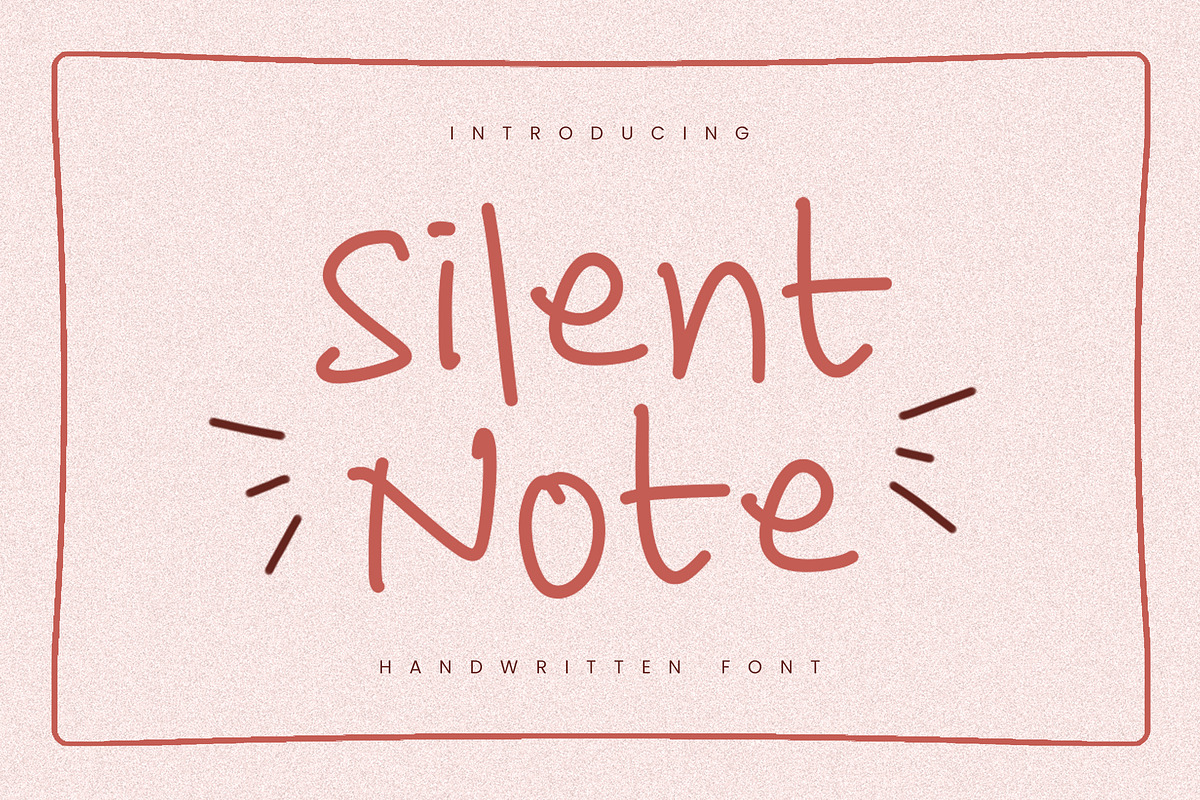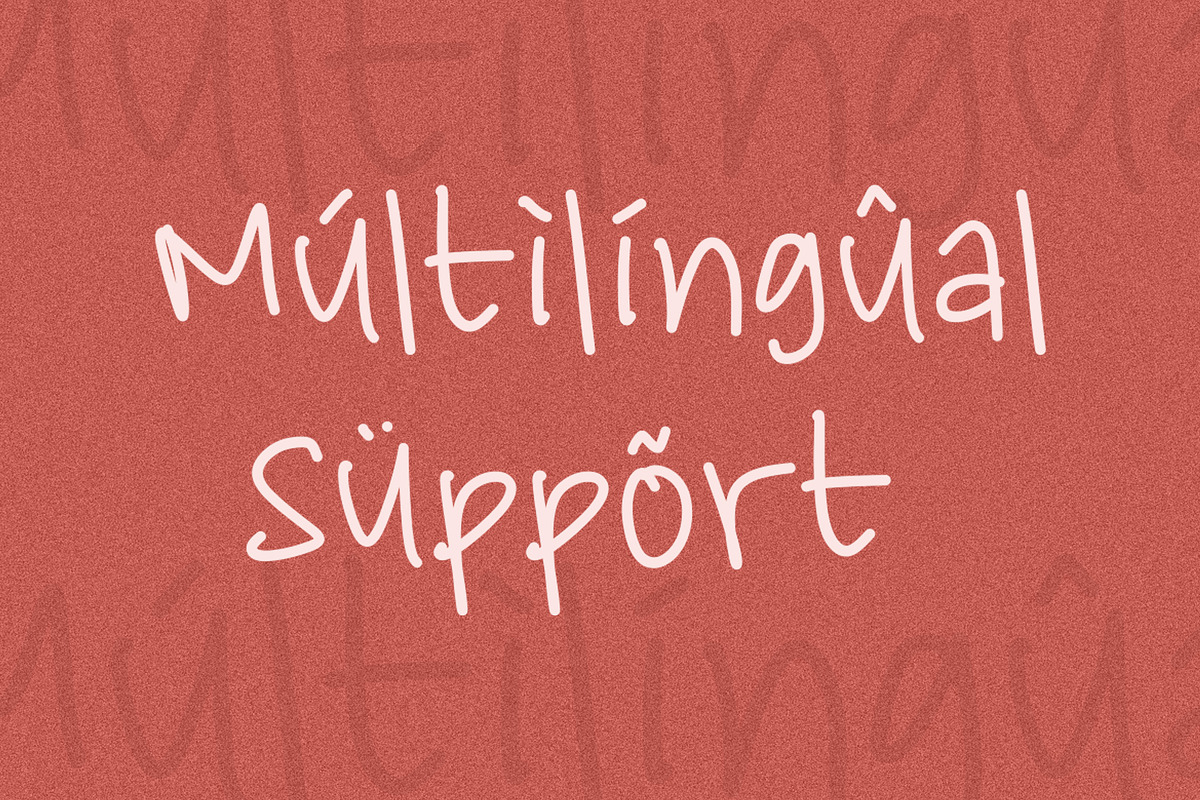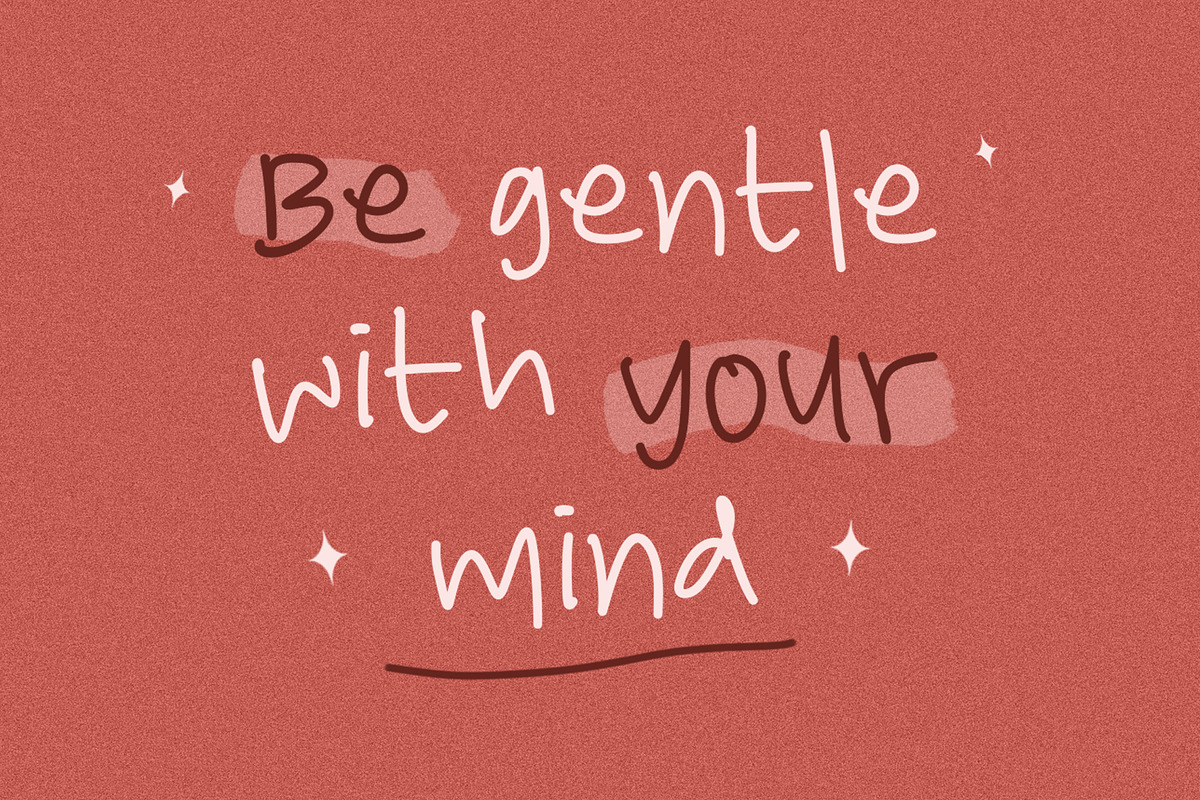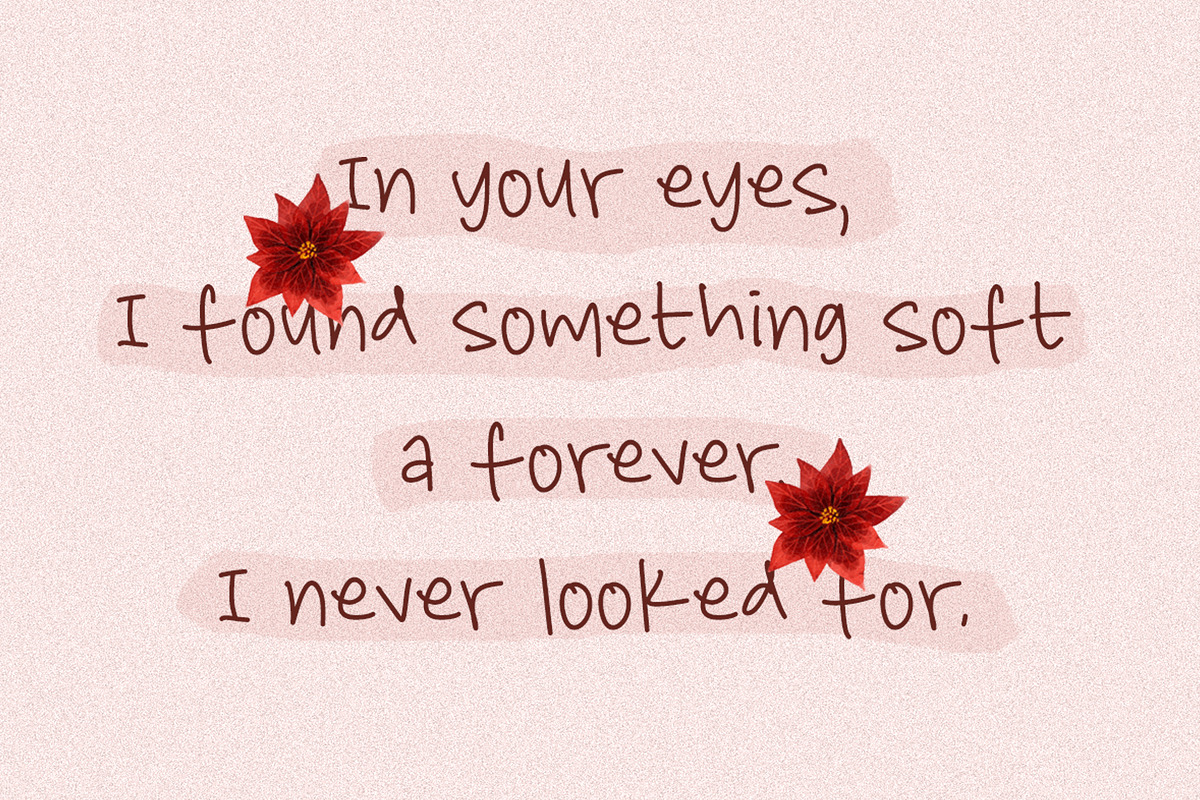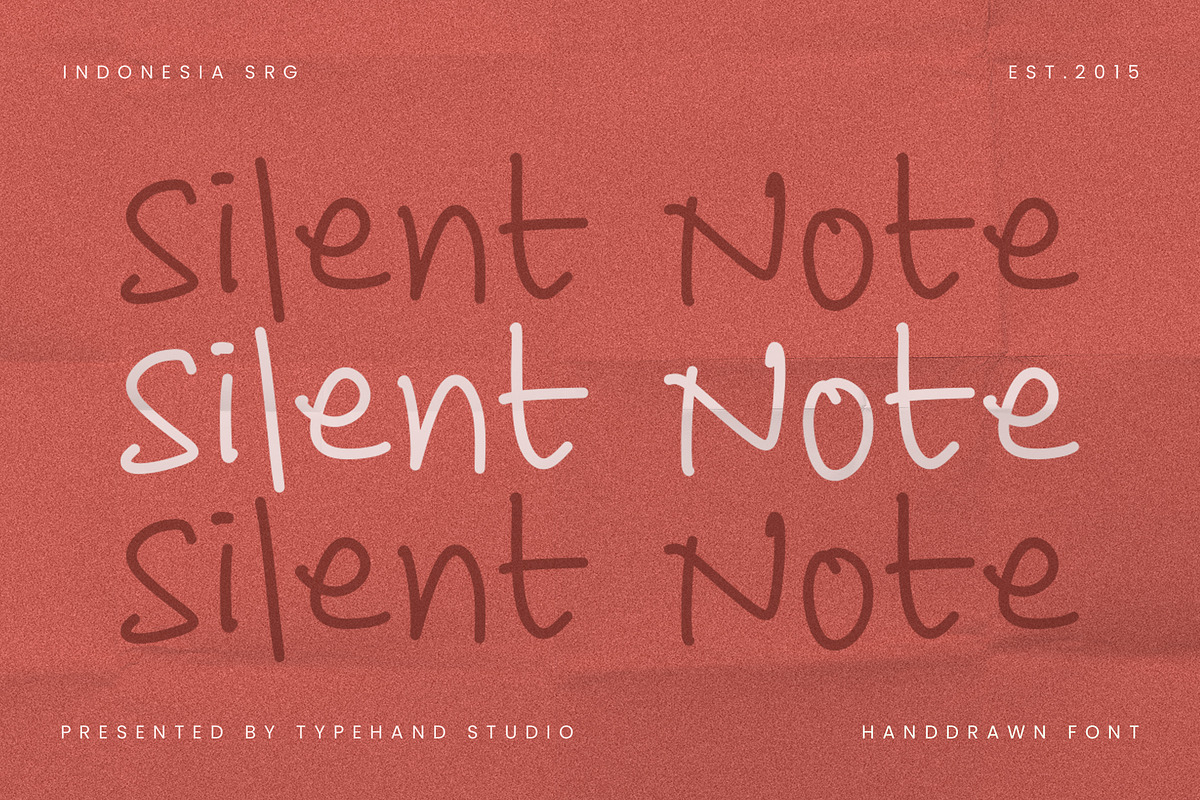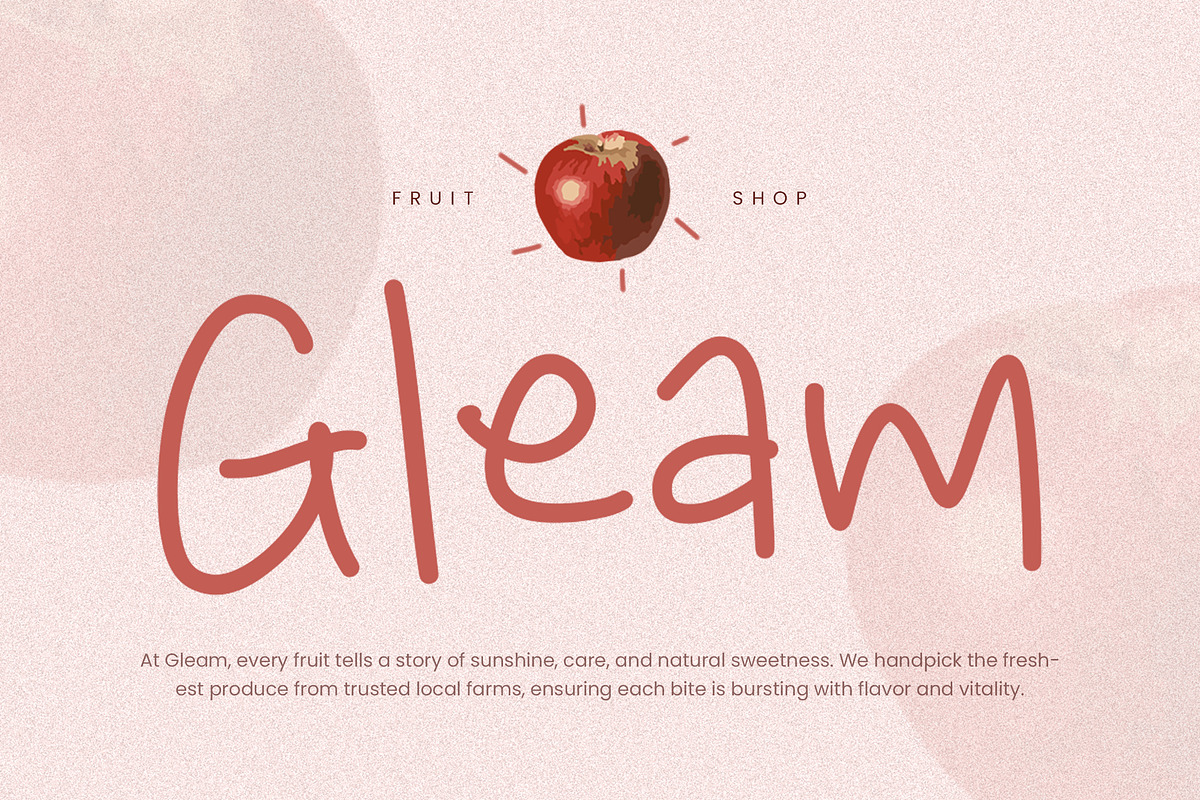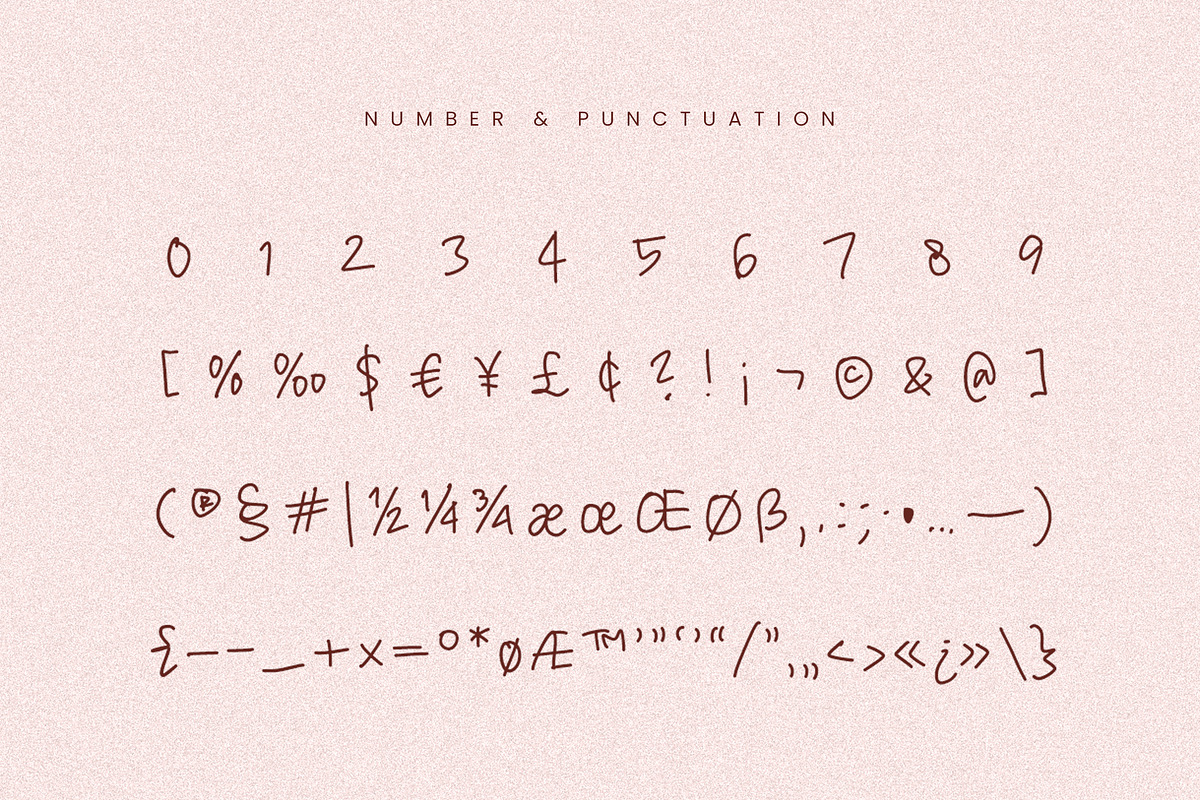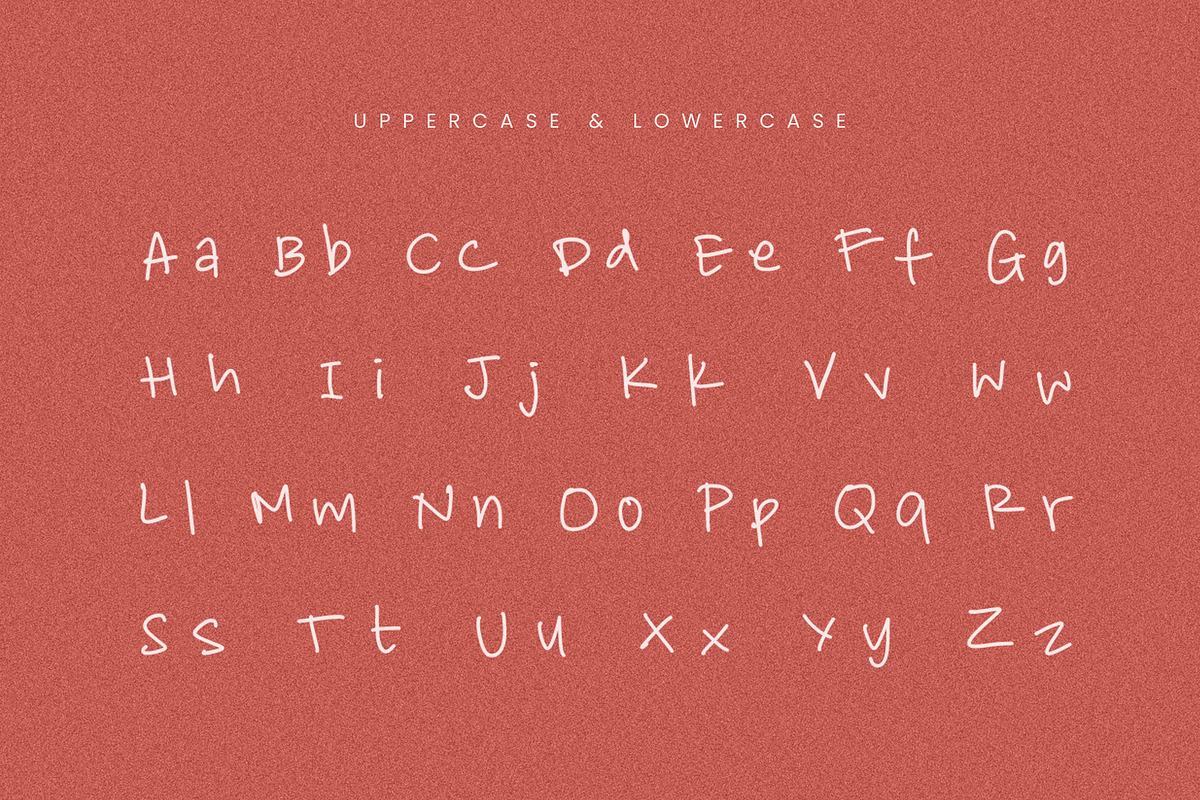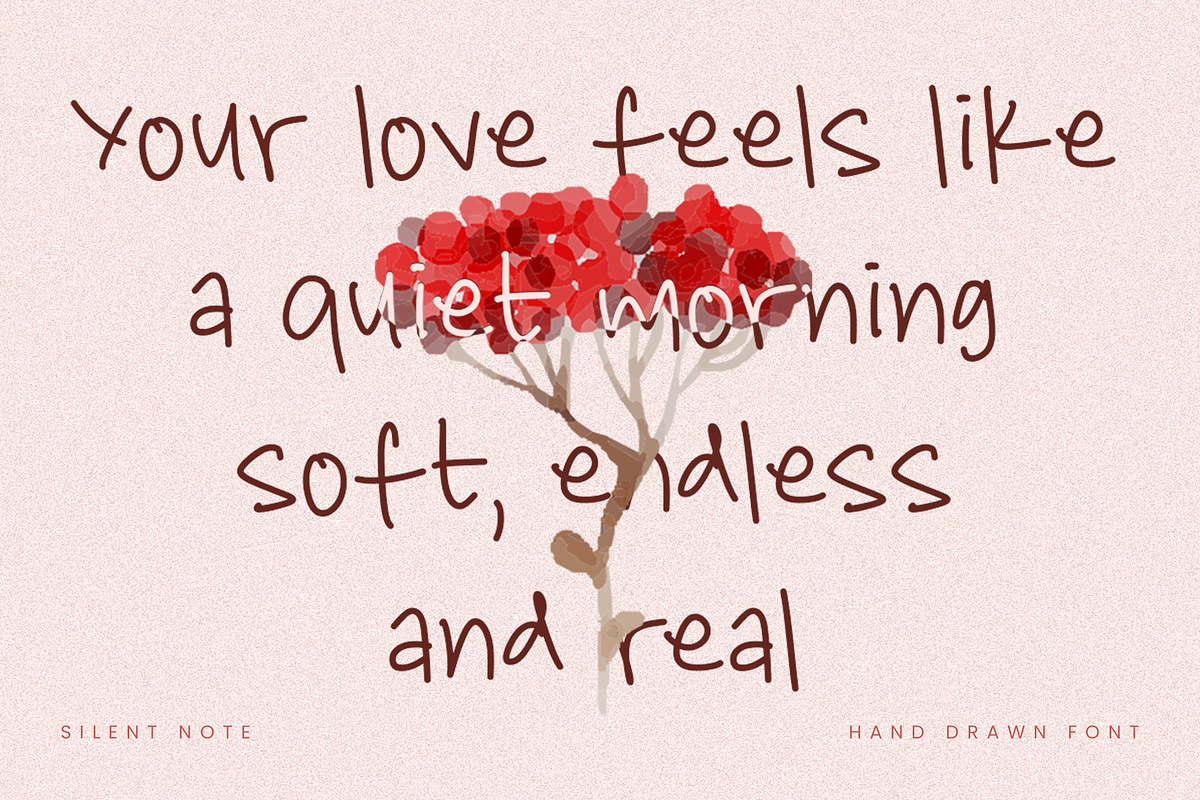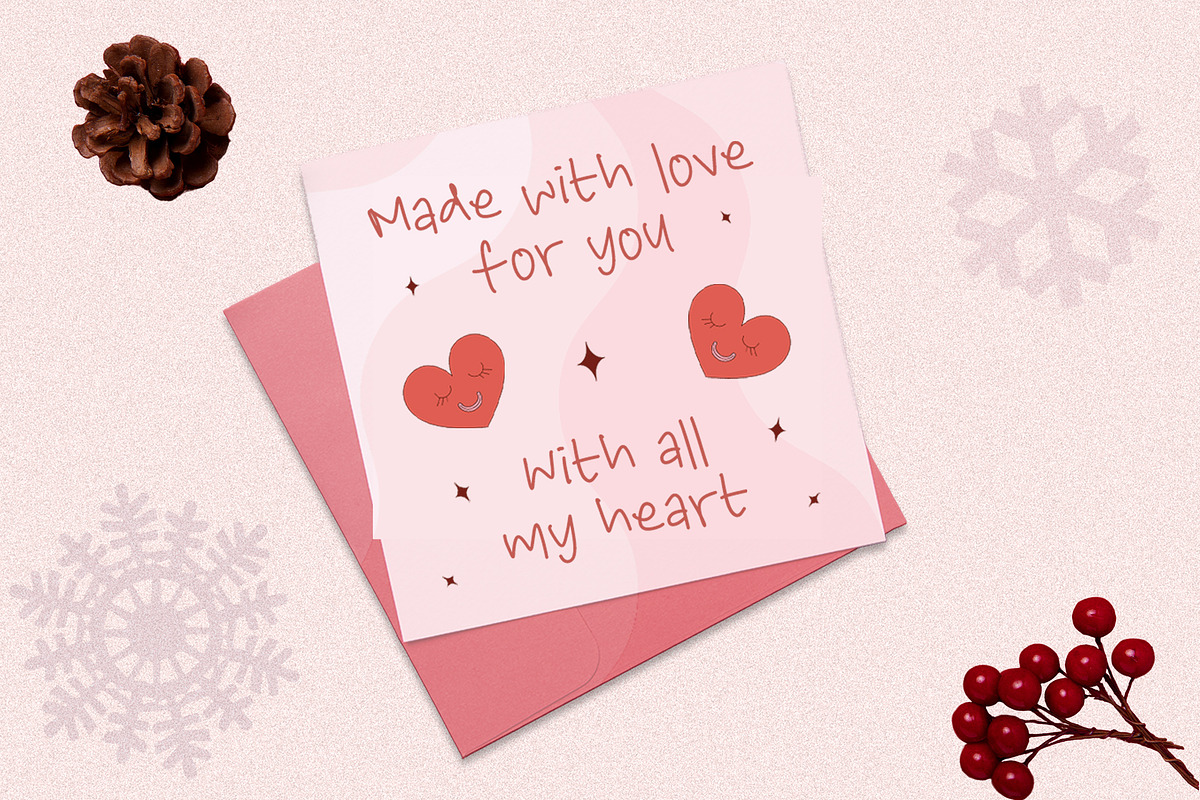
Silent Note – Warm Handwritten
Silent Note is a warm, monoline handwritten typeface designed for brands that want to feel human, calm, and authentic.
Built with consistent stroke weight and soft rounded terminals, this typeface delivers a natural handwritten presence while maintaining structural clarity. The letterforms carry slight irregularity for personality, yet remain controlled enough for serious commercial use.
Unlike decorative scripts that limit usability, Silent Note is designed for real branding environments. Its open counters and relaxed spacing ensure strong readability in logos, packaging, and social media headers. It performs especially well at medium to large sizes, where its friendly character becomes a visual signature.
This typeface is strategically suited for organic food brands, boutique cafés, handmade skincare, wellness startups, children’s products, and independent creative businesses. It communicates honesty and care without appearing rustic or outdated. The tone is modern, soft, and emotionally engaging.
Because of its clean monoline structure, Silent Note integrates seamlessly into broader identity systems. Pair it with a minimalist sans serif for balance or a refined serif for contrast. It works equally well in print packaging, label design, Instagram content, and lightweight editorial layouts.
Multilingual support expands its commercial flexibility, making it viable for international branding projects. Uppercase and lowercase characters provide typographic hierarchy while maintaining cohesive personality.
Silent Note is not just a casual handwriting style. It is a branding tool engineered to humanize visual identity while remaining scalable and professional.
If your brand strategy centers on authenticity, transparency, and warmth, this typeface delivers that message immediately and convincingly.